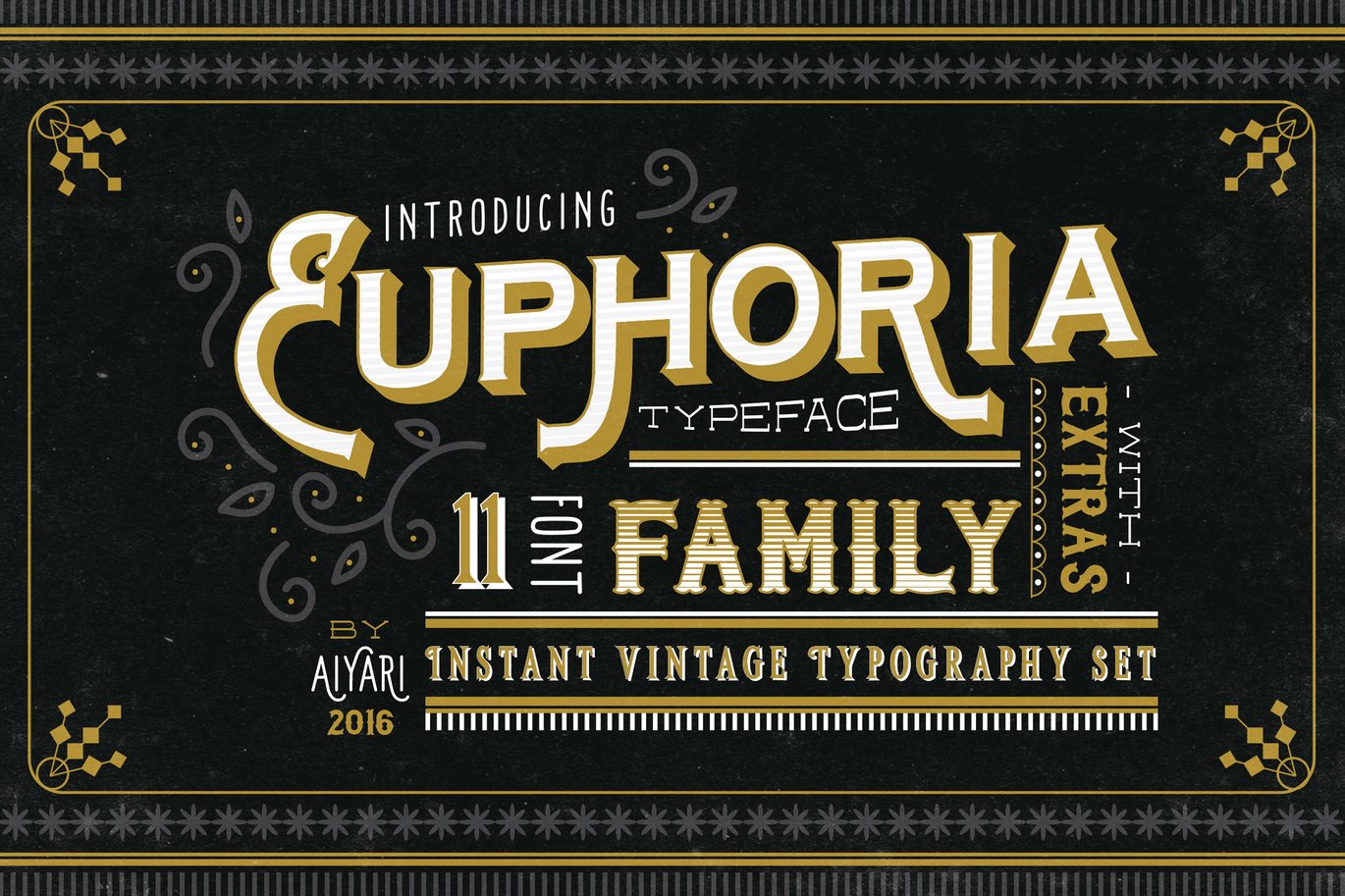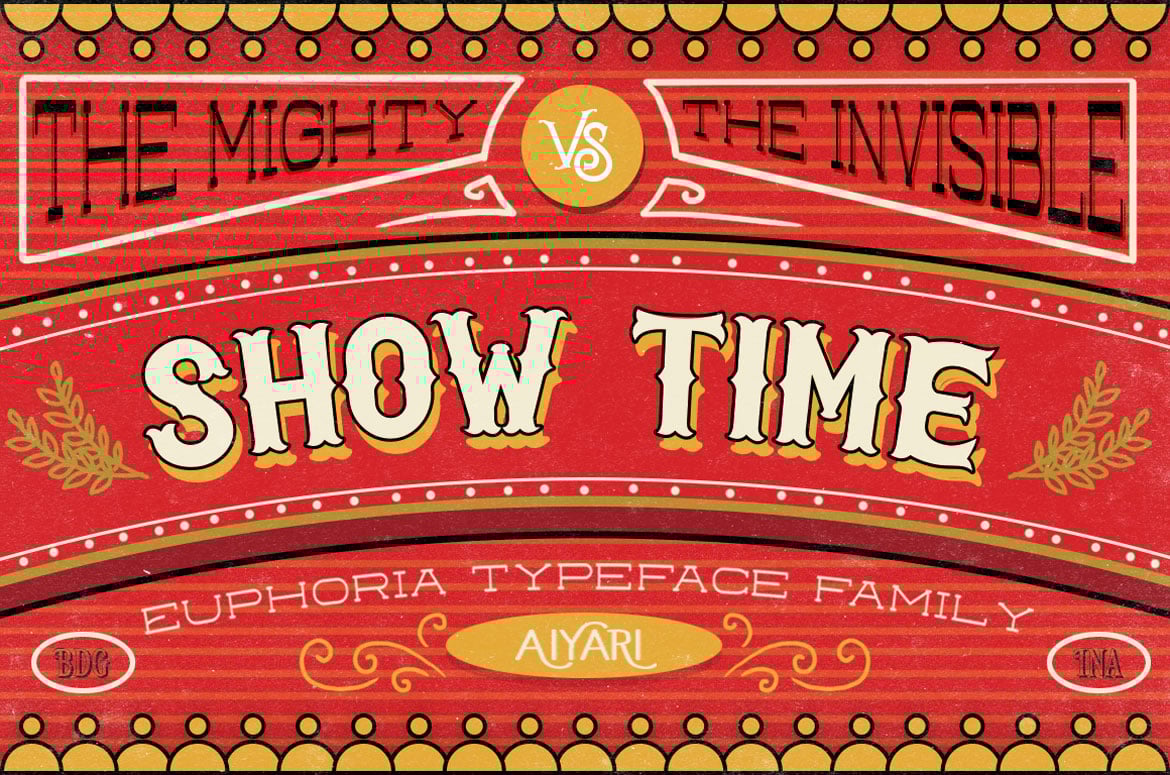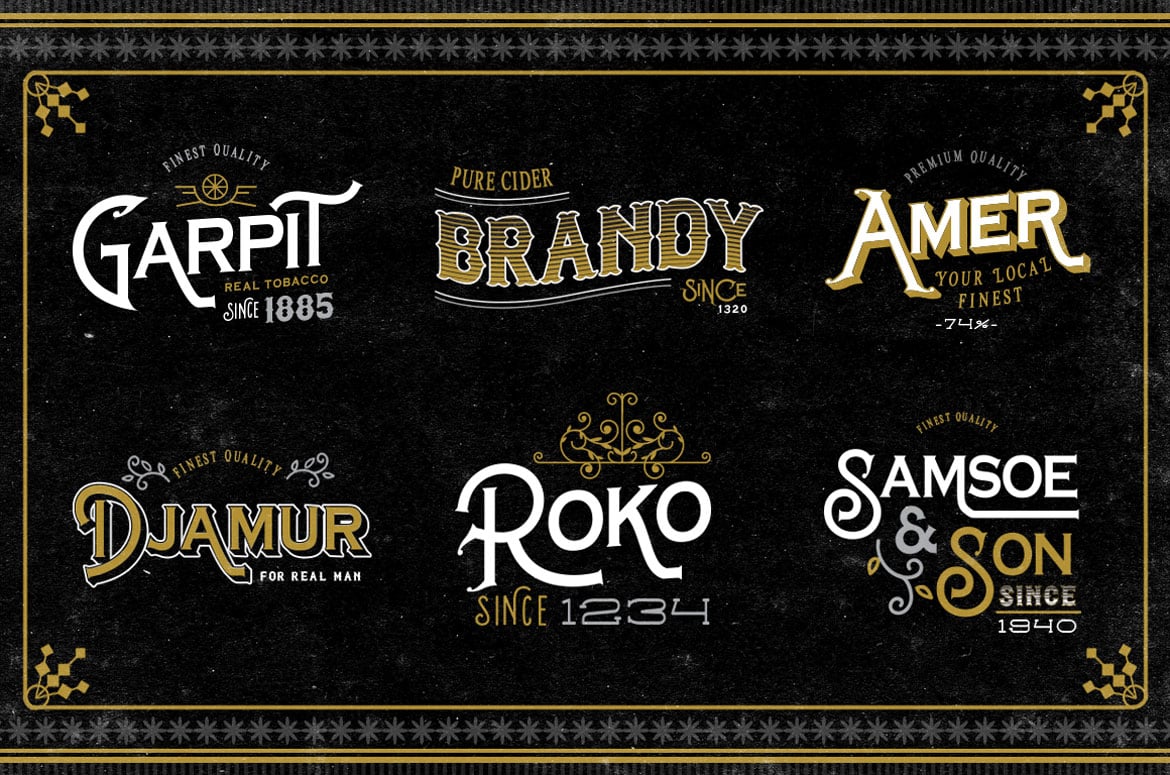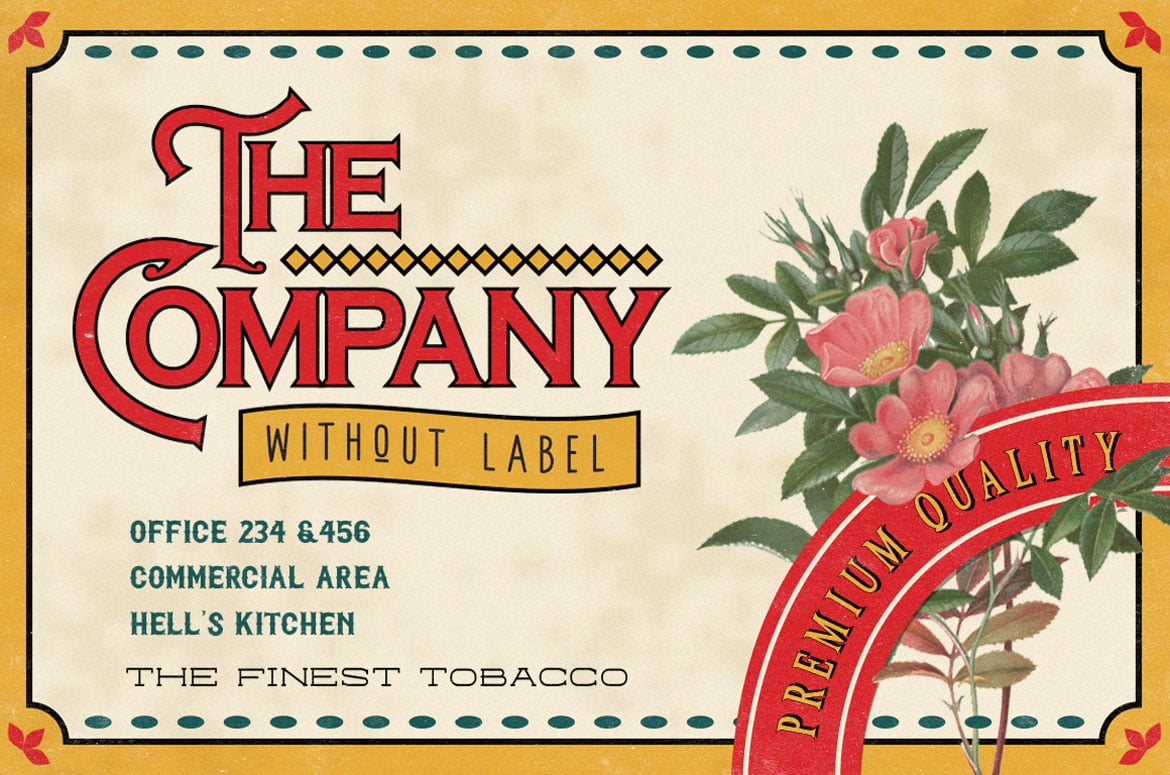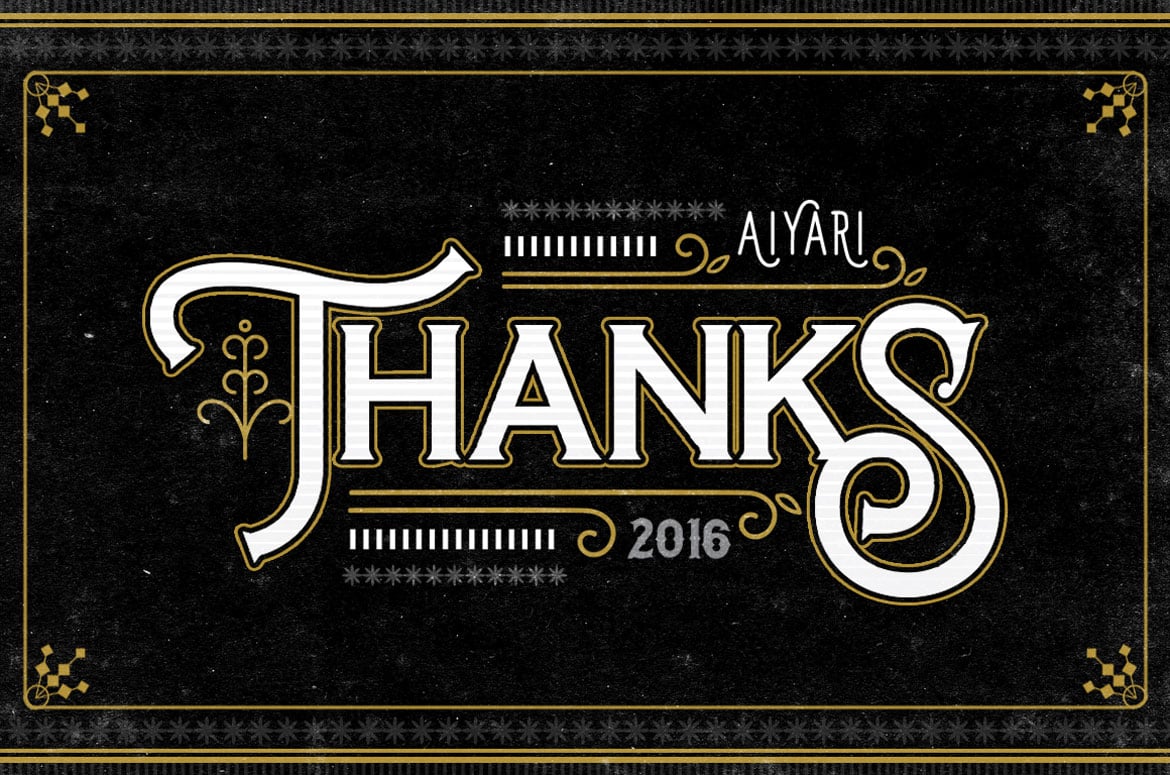
Euphoria Font Family
Introducing Euphoria Font Family. Well crafted typeface inspired by victorian and vintage typography. With 11 font and 1 extras files that work well together to make an instant vintage design. The typeface Ideal for : Logo, quotes, invitations, signage, poster, greeting cards, packaging, headers, printed quotes, cover album, etc
Euphoria Font Family
- Euphoria Victorian (Font feature : Upper and lowercase, Numeral, Punctuation, & Stylistic alternate)
- Euphoria Victorian Shadow (Upper and lowercase, Numeral, Punctuation, & Stylistic alternate)
- Euphoria Victorian Gradient (Upper and lowercase, Numeral, Punctuation, & Stylistic alternate)
- Euphoria Tuscan (Font feature All Caps, Numeral, Punctuation, & Multi language support)
- Euphoria Tuscan Gradient (Font feature All Caps, Numeral, Punctuation, & Multi language support)
- Euphoria Tuscan Outline (Font feature All Caps, Numeral, Punctuation, & Multi language support)
- Euphoria Serif (Font feature All Caps, Numeral, Punctuation, & Multi language support)
- Euphoria Serif Shadow (Font feature All Caps, Numeral, Punctuation, & Multi language support)
- Euphoria Expand (Font feature All Caps, Numeral, Punctuation, & Multi language support)
- Euphoria Expand Bold (Font feature All Caps, Numeral, Punctuation, & Multi language support)
- Euphoria Sans (Font feature Upper and lowercase, Numeral, Punctuation, & Stylistic alternate)
- Euphoria Extras